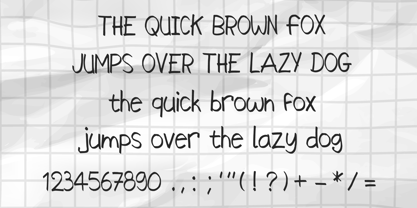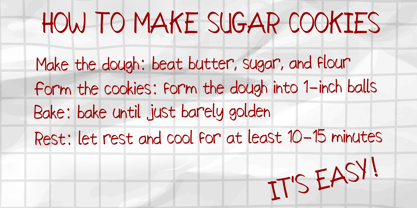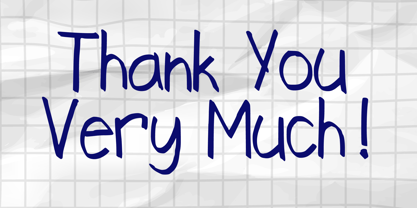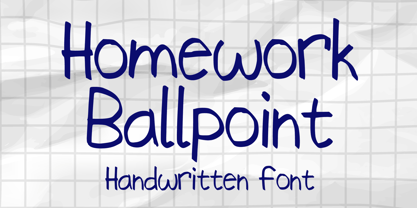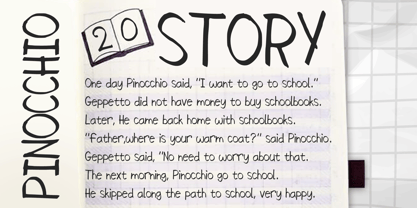
Homework Ballpoint
The Homework Ballpoint Font Family was designed by Gabriel Valentinus and published by Mvmet. Homework Ballpoint contains 1 styles. More about this family
Introducing Homework Ballpoint – an everyday font with a twist that injects an element of fun into your routine tasks. This highly versatile typeface combines playfulness with professionalism, effortlessly transforming any project with its distinct flair. Whether you're creating vibrant stickers, catchy t-shirt designs, or striking logos, Homework Ballpoint sprinkles a dash of creativity into your work. It's also the ideal choice for magazines, book covers, intricate comic details, or unique cartoon illustrations. With Homework Ballpoint, every design is amplified, turning the ordinary into the extraordinary! This typeface enriches your design palette with a touch of coolness. Experience the transformational charm of Homework Ballpoint in your projects.